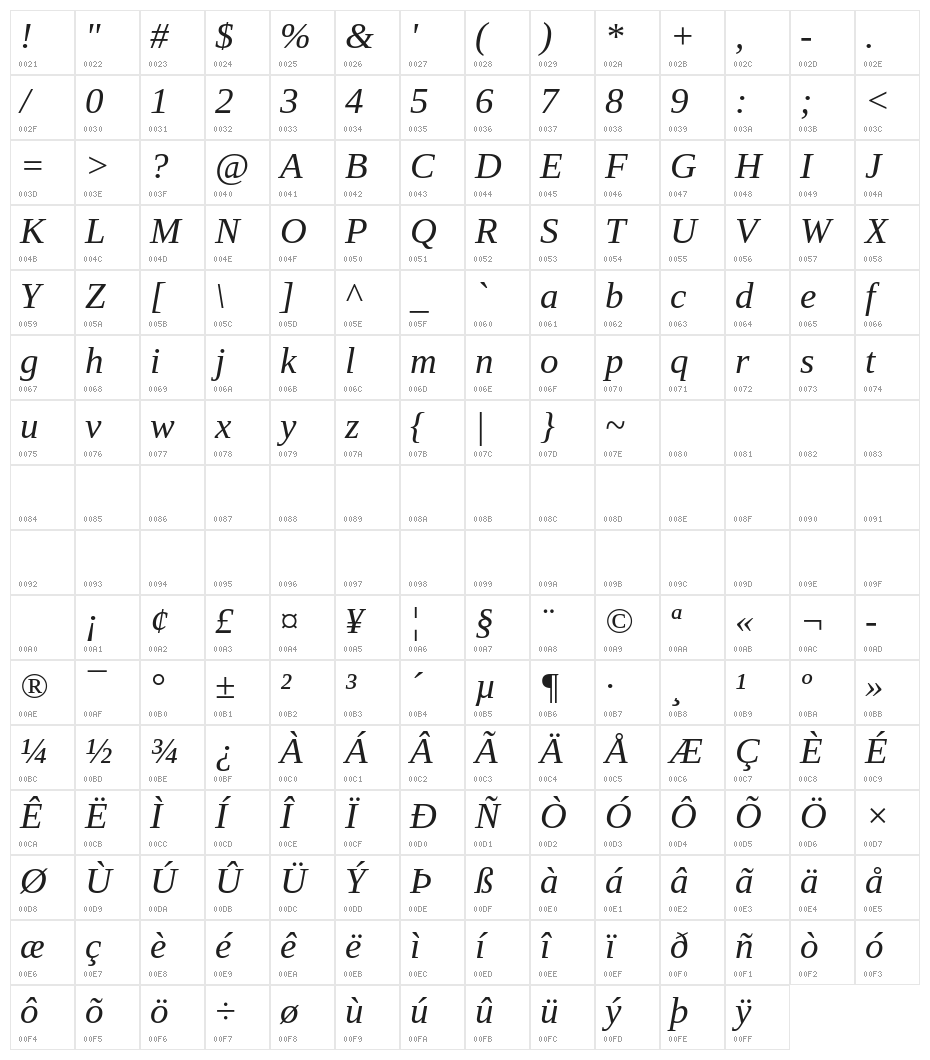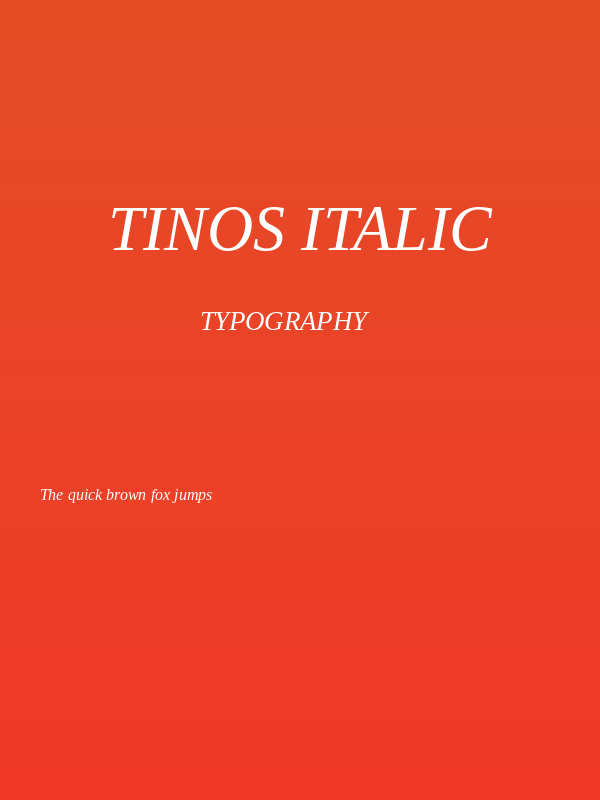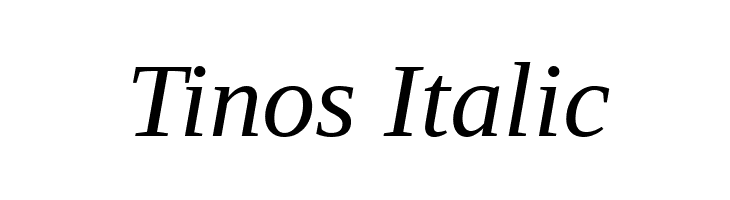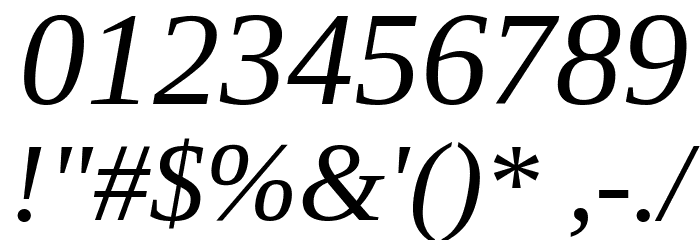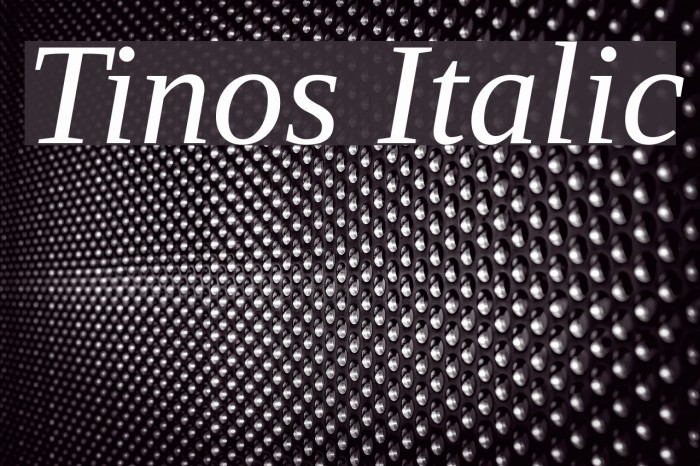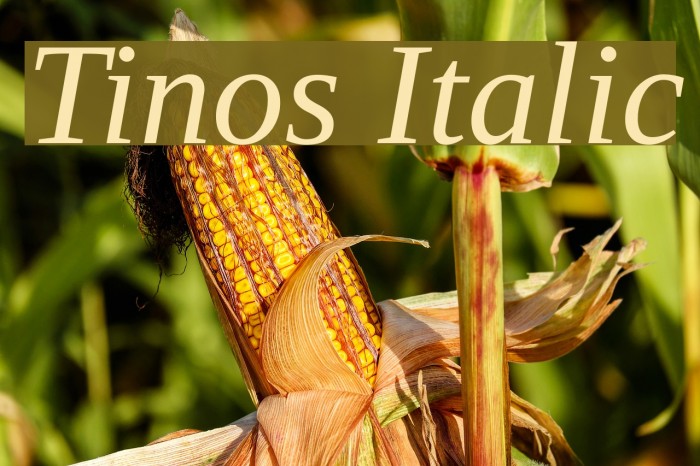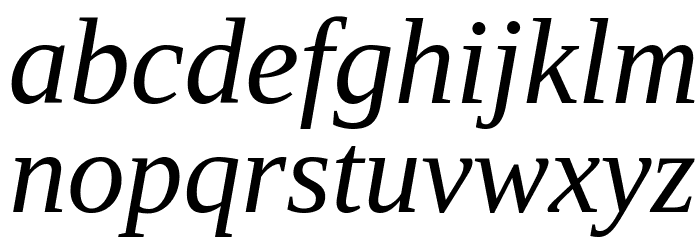
Tinos Italic Font
Tinos Italic Description
This typeface presents a classic and elegant serif design with a distinct italic slant, offering a sophisticated and timeless appearance. The characters are well-proportioned, with a moderate contrast between thick and thin strokes, enhancing readability while maintaining a refined aesthetic. The serifs are subtle yet pronounced, adding a touch of formality and tradition. This font is versatile, suitable for both digital and print media, and can be effectively used in various contexts where a touch of elegance is desired. The numerals and special characters are designed to complement the alphabet, ensuring consistency across all text elements.
| Categories | Serif |
| Overall Style | Classic |
| Use Case | Headlines, Body text, Editorial design |
| Proposed Projects | Ideal for editorial design, book covers, formal invitations, and branding projects that require a touch of elegance and tradition. |